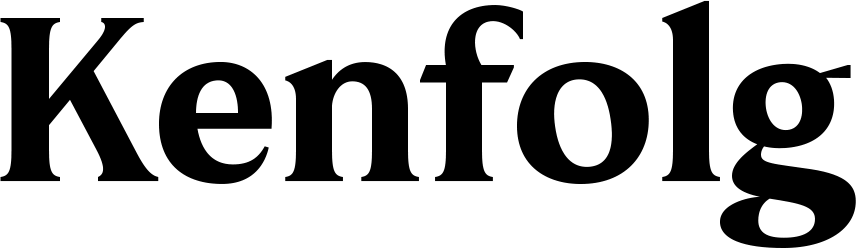
MADE Kenfolg Font
If you need a bold serif font for your text or headline, MADE Kenflog can surely do the job for you! This font has a simple and big character style and it gives off a powerful and professional sense to your reader.
This font can be used for formal text titles, movie headlines, brand logo designs, or drama and classic books.
MADE Kenfolg is a display serif typeface.
The Kenfolg serif font will perfect for many project: book, magazines, logo, branding, photography, quotes, blog header, poster, advertisements, etc.